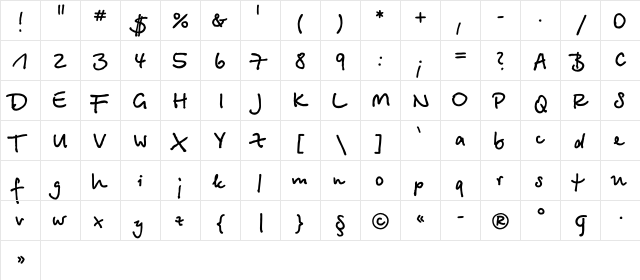
BetinaScriptC Bold Font Preview
BetinaScriptC Bold
Design Context for BetinaScriptC Typeface
BetinaScriptC flows with the natural rhythm of handwritten lettering, making it ideal for designs that call for warmth and personal expression. The heavy weight commands attention and anchors typographic hierarchies.
Font Pairing: Combine BetinaScriptC with a simple geometric sans for maximum contrast — the tension between flowing curves and clean structure is a classic typographic pairing.
Pro Tip: Pair BetinaScriptC with a clean sans-serif for supporting text. The contrast between fluid script and geometric structure creates an elegant typographic hierarchy.